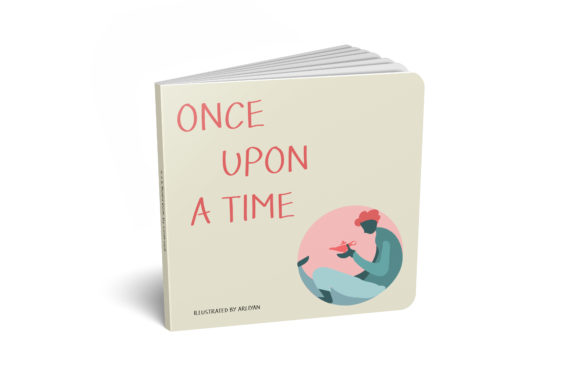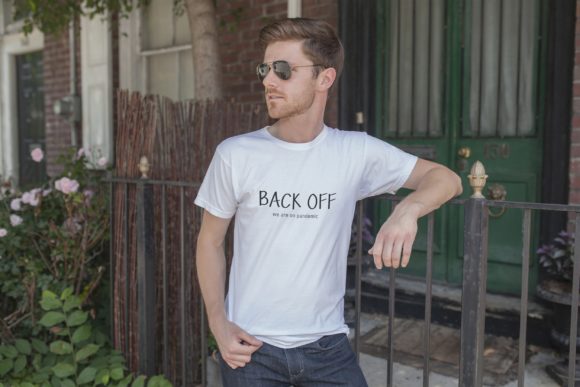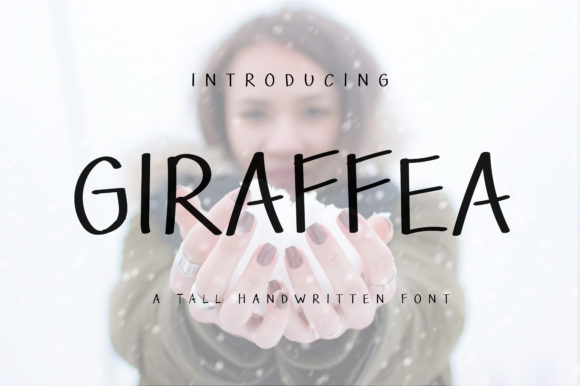
Giraffea Font: The Coolest All-Caps Handwritten Font for Designers and Crafters
Are you tired of using the same old fonts for your designs and crafts? Look no further! Introducing Giraffea, a cool, all-caps handwritten font that’s taking the design world by storm. With its perfect blend of trendiness and elegance, Giraffea is the perfect addition to your font collection.
What Makes Giraffea So Special?
Giraffea is a unique and stylish font that’s perfect for a variety of design projects. Whether you’re a digital designer, a crafter, or a presentation maker, this font is sure to impress. Its all-caps design makes it perfect for headlines, titles, and statements, while its handwritten feel adds a touch of personality and whimsy.
Perfect for Crafting and Digital Designing
Giraffea is a versatile font that can be used for a wide range of design projects. If you’re a crafter, you’ll love using Giraffea for:
- Handmade cards and invitations
- DIY projects and signs
- Customized gifts and decorations
- Scrapbooking and journaling
And if you’re a digital designer, you’ll appreciate Giraffea’s:
- Clean and crisp digital rendering
- Scalability without losing quality
- Compatibility with a range of design software
Why Giraffea is a Must-Have for Presentations and Greeting Cards
Giraffea is not just limited to crafting and digital designing. Its professional and yet playful feel makes it perfect for:
- Presentations and slideshows
- Brochures and catalogs
With Giraffea, you can add a touch of personality to your presentations and greeting cards, making them stand out from the crowd.
Key Features of Giraffea Font
- All-caps handwritten font
- Cool and trendy design
- Perfect for digital designing, crafting, and presentations
- Clean and crisp digital rendering
- Scalable without losing quality
- Compatible with a range of design software
Tips and Tricks for Getting the Most Out of Giraffea
Here are some tips and tricks for getting the most out of Giraffea font:
- Use Giraffea in combination with other fonts to create a unique and eye-catching design
- Don’t be afraid to get creative and try out new and unusual design ideas
In conclusion, Giraffea font is a cool, all-caps handwritten font that’s perfect for designers and crafters. With its trendy design and versatile uses, Giraffea is a must-have for any design project. Whether you’re a digital designer, a crafter, or a presentation maker, Giraffea is sure to impress. So why wait? Download Giraffea font today and start creating amazing designs!